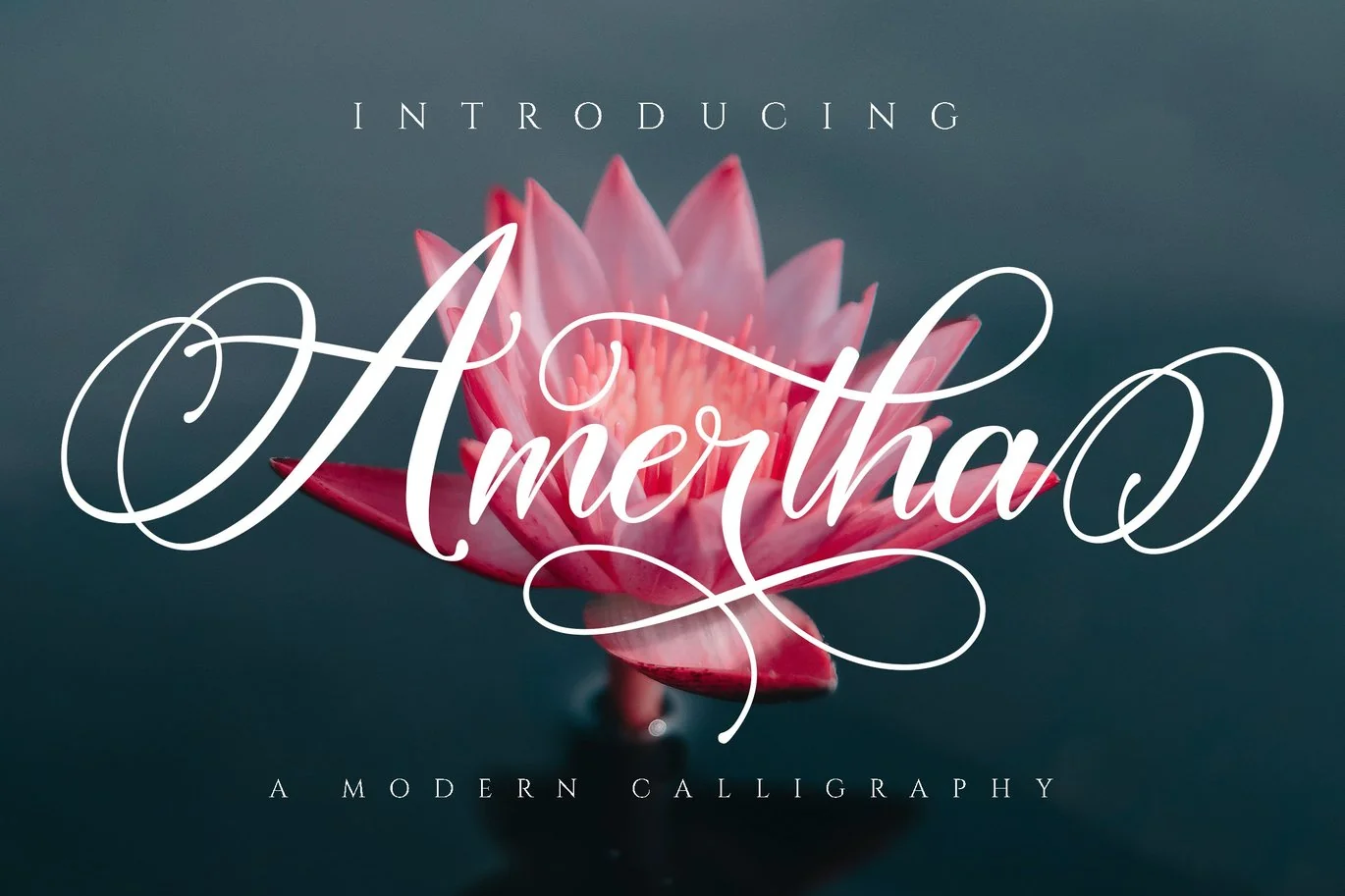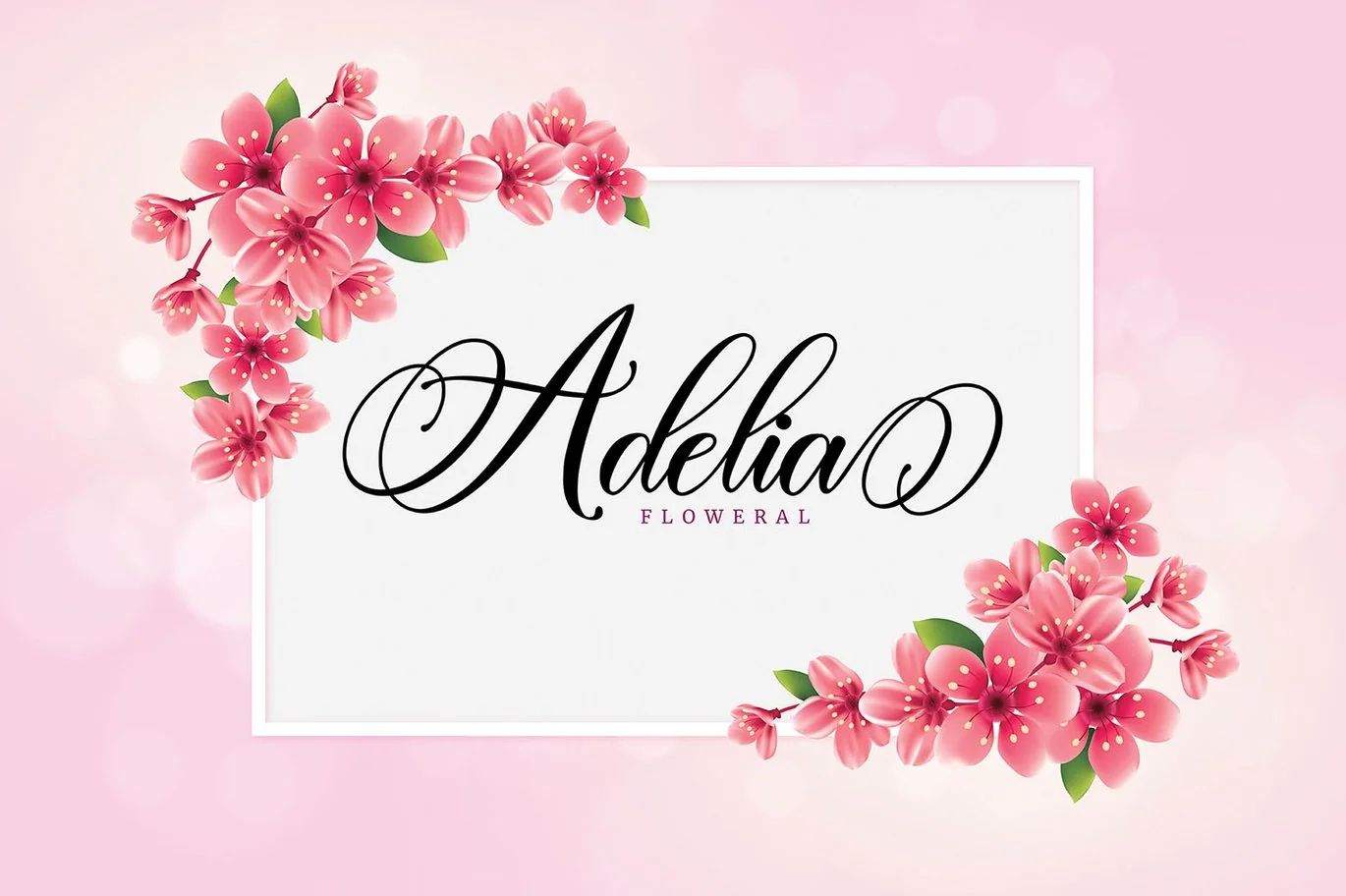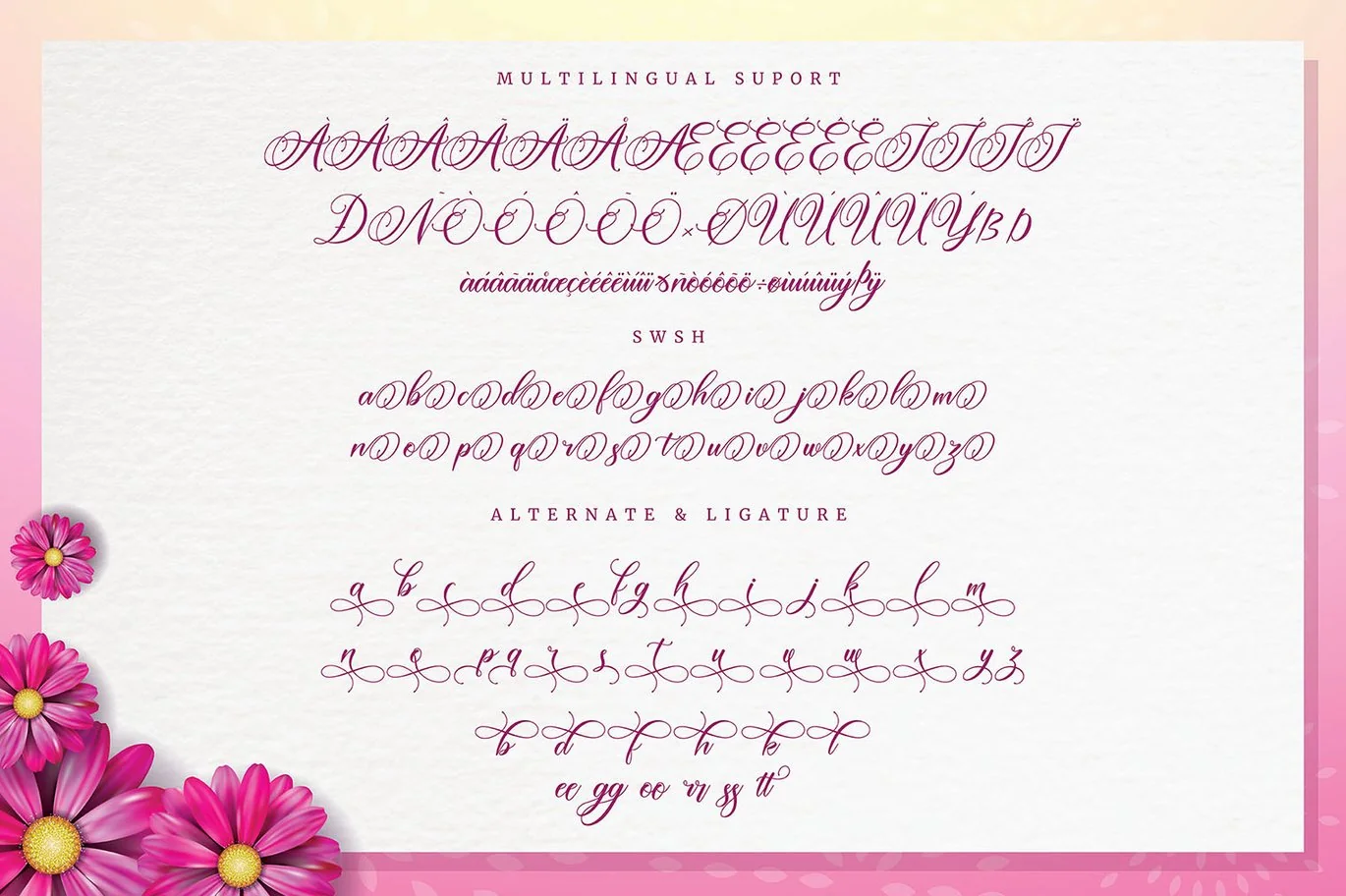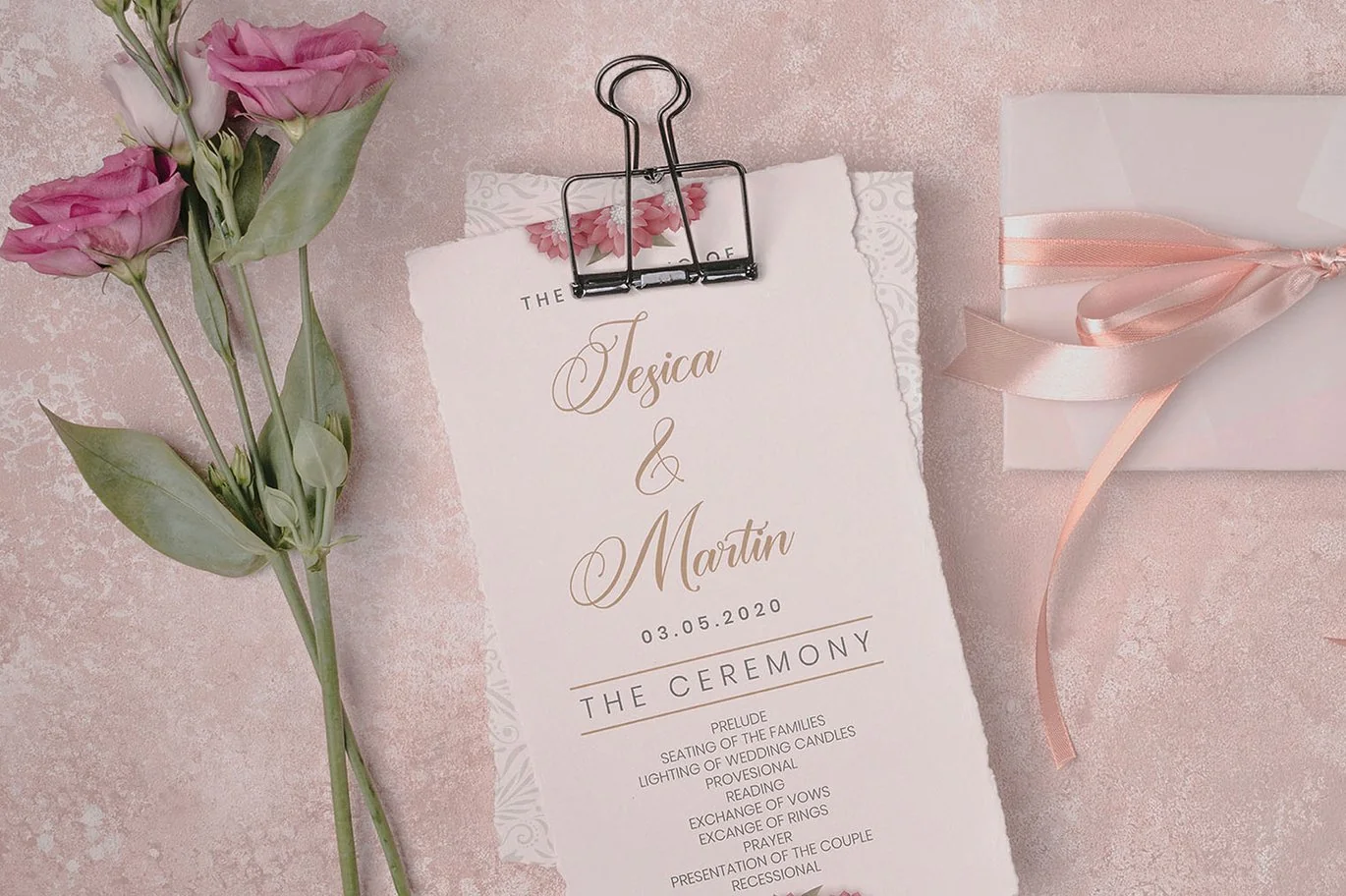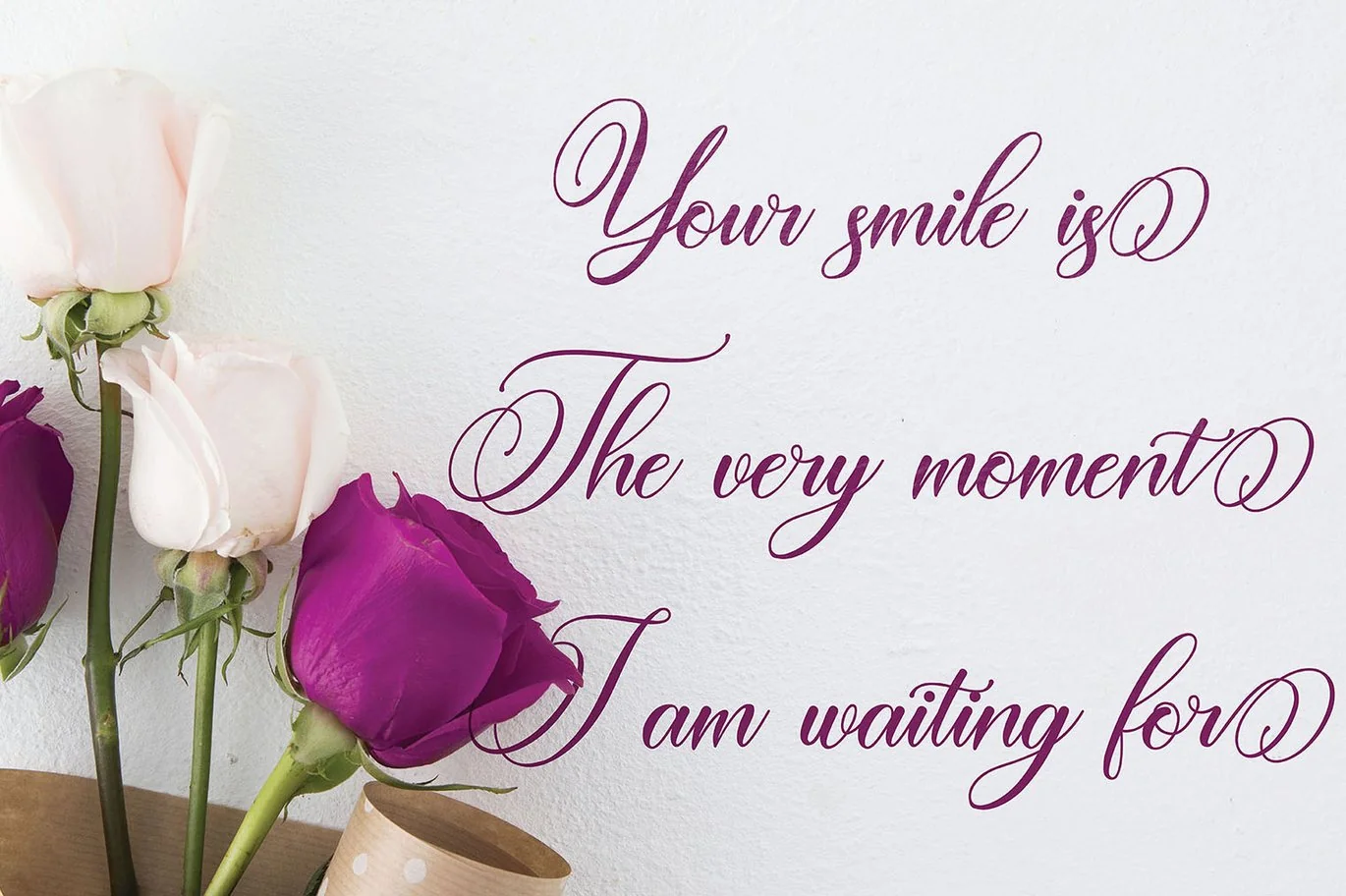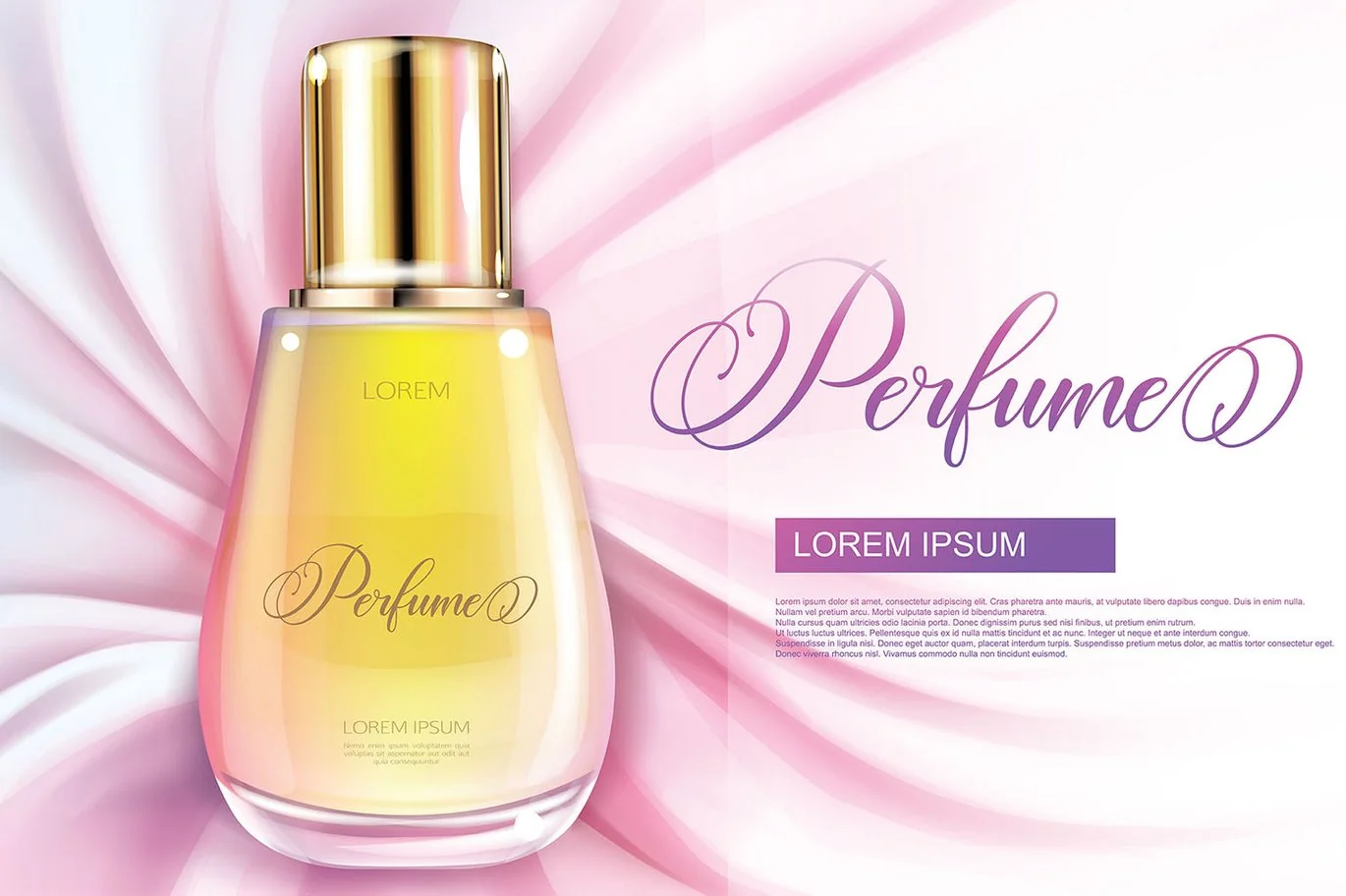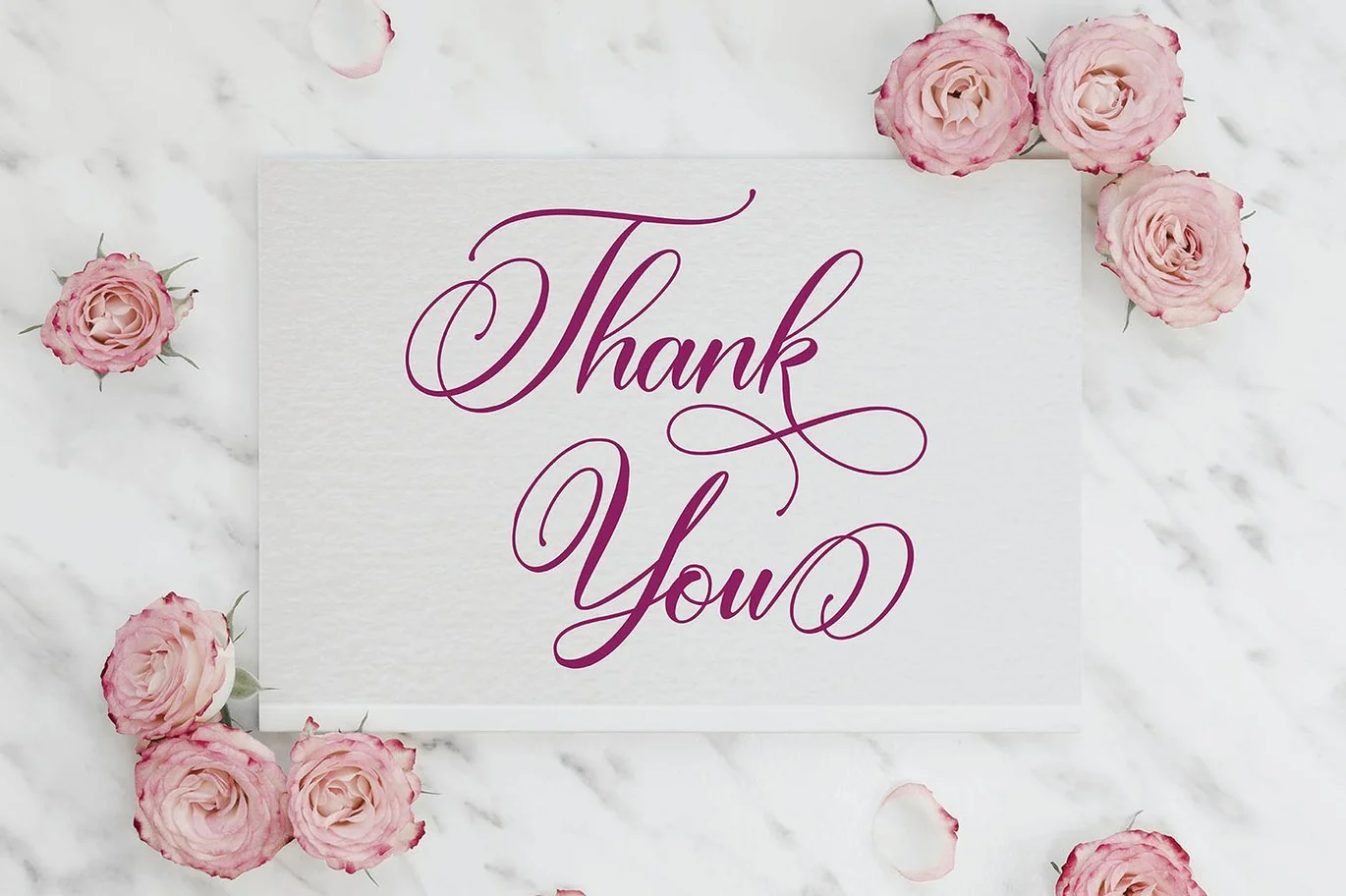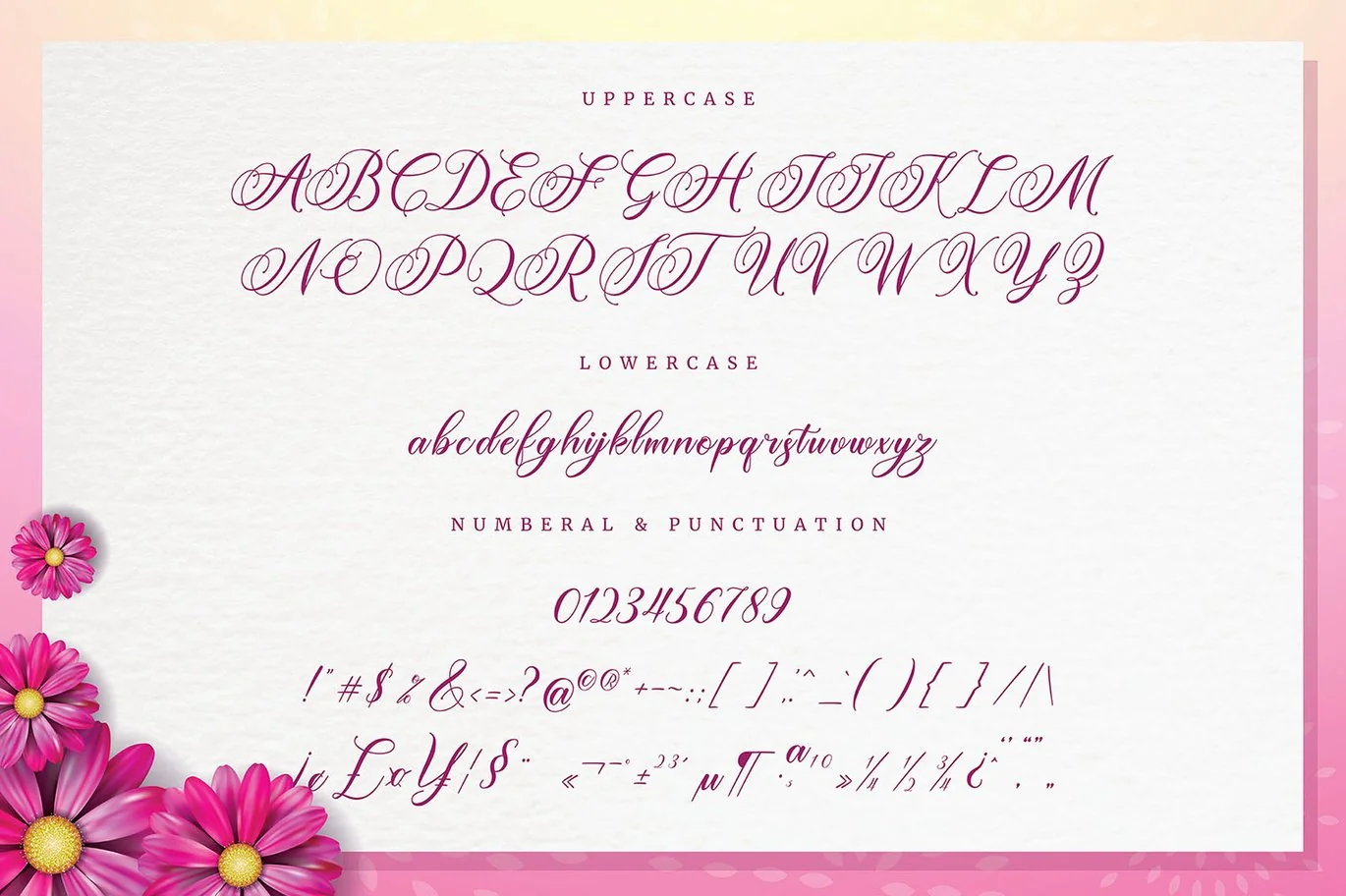
Amertha_a modern calligraphy font
Amertha is a lovely and flowing modern calligraphy and handwritten font. It looks wonderful on wedding invitations, thank you cards, quotes, greeting cards, logos, business cards and every other design which needs a handwritten touch. This font is PUA encoded which means you can access all of the glyphs and swashes with ease! It features a varying baseline, smooth lines, gorgeous glyphs and stunning alternates.